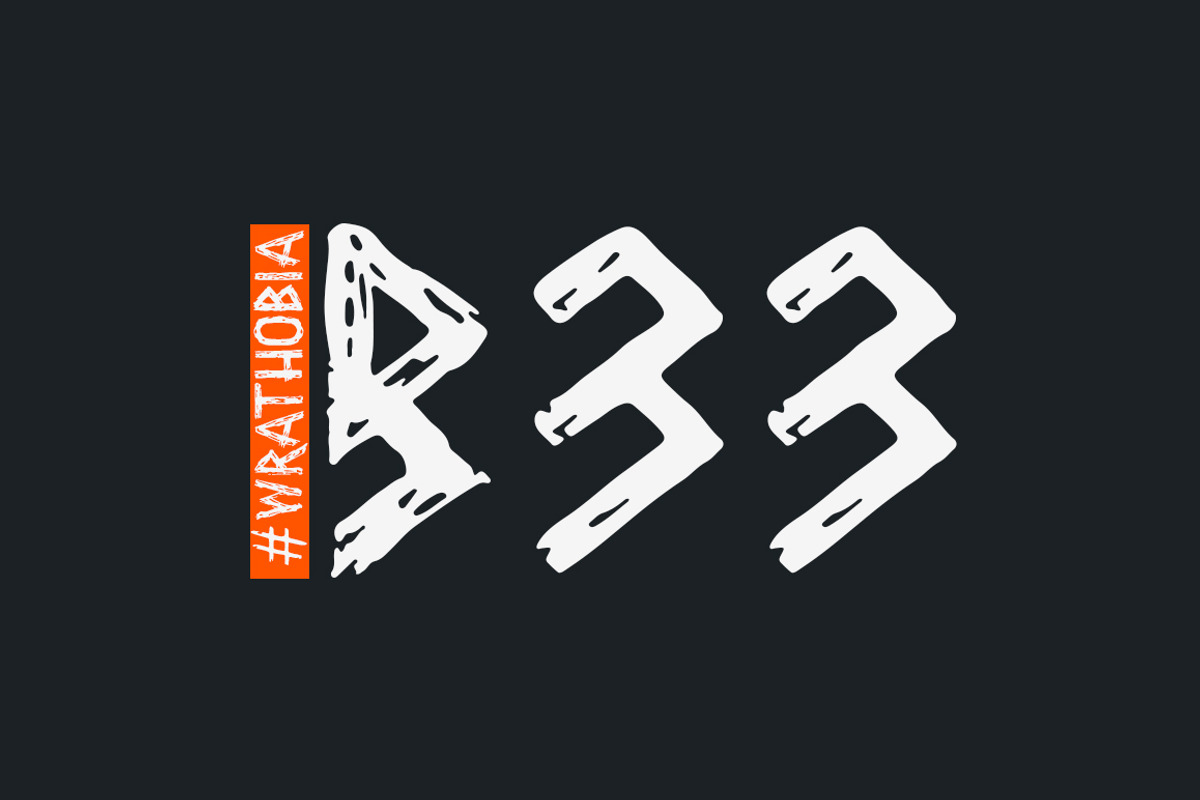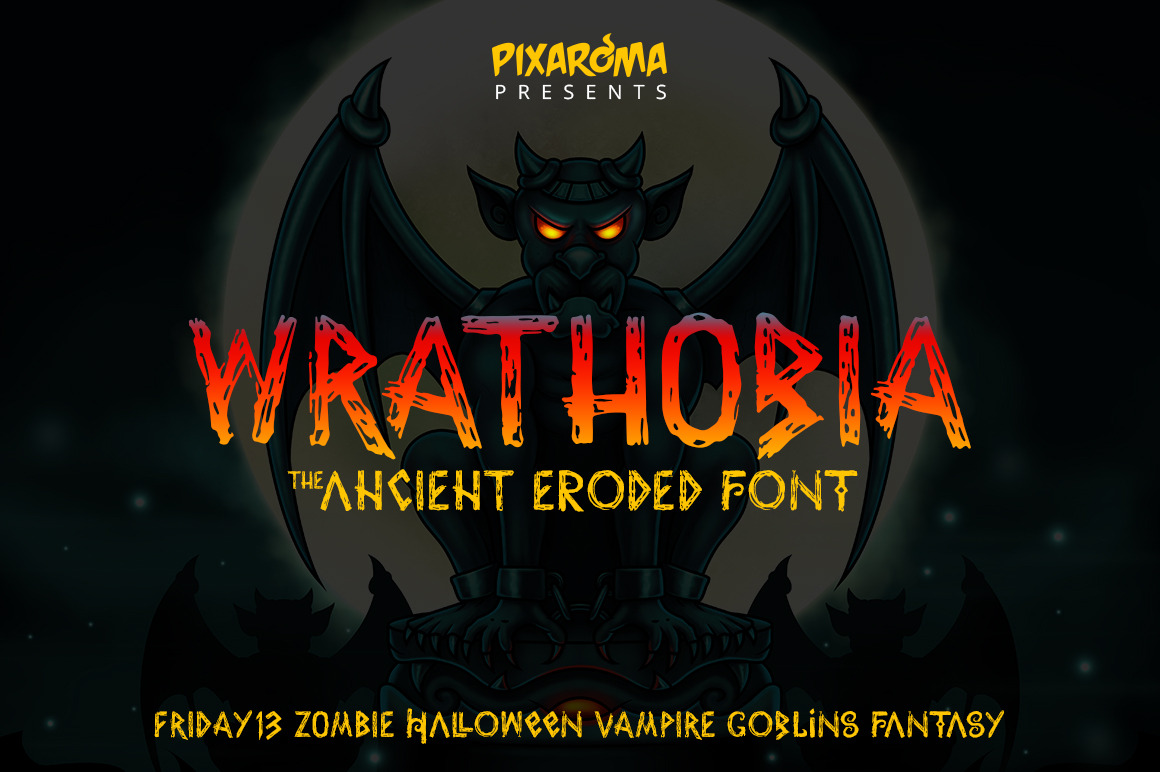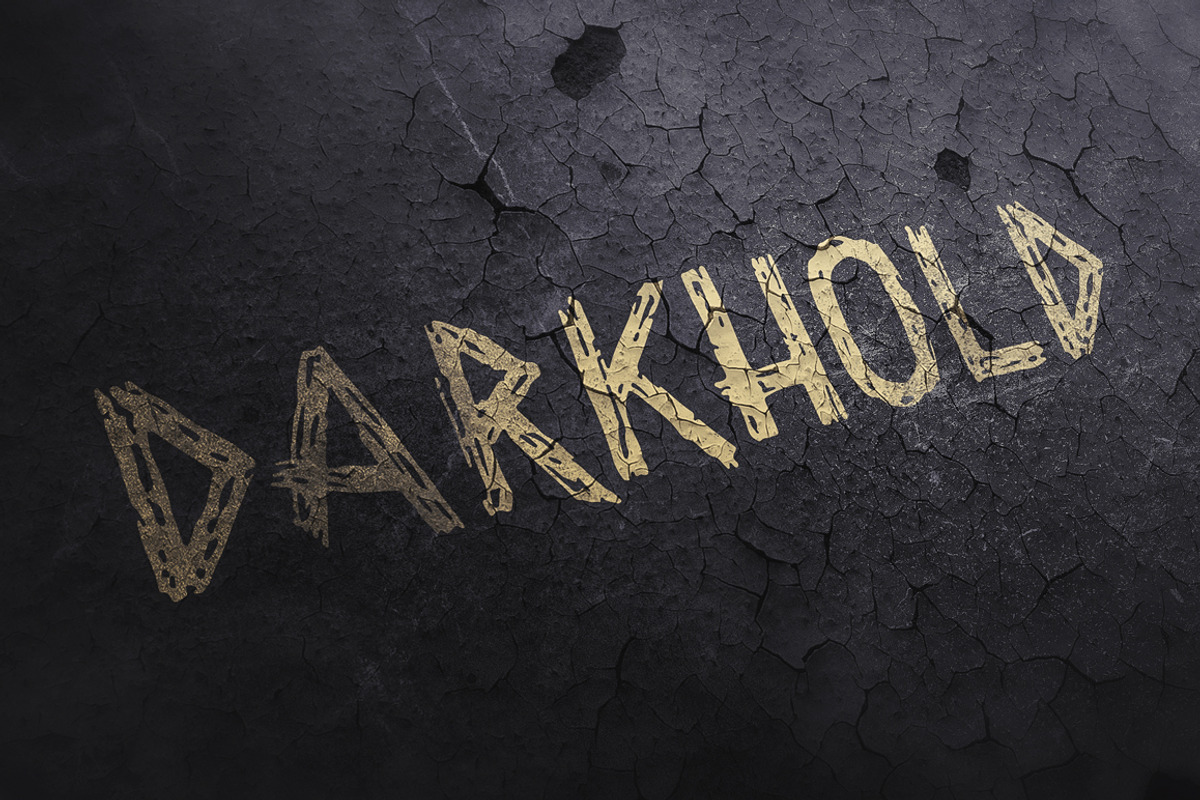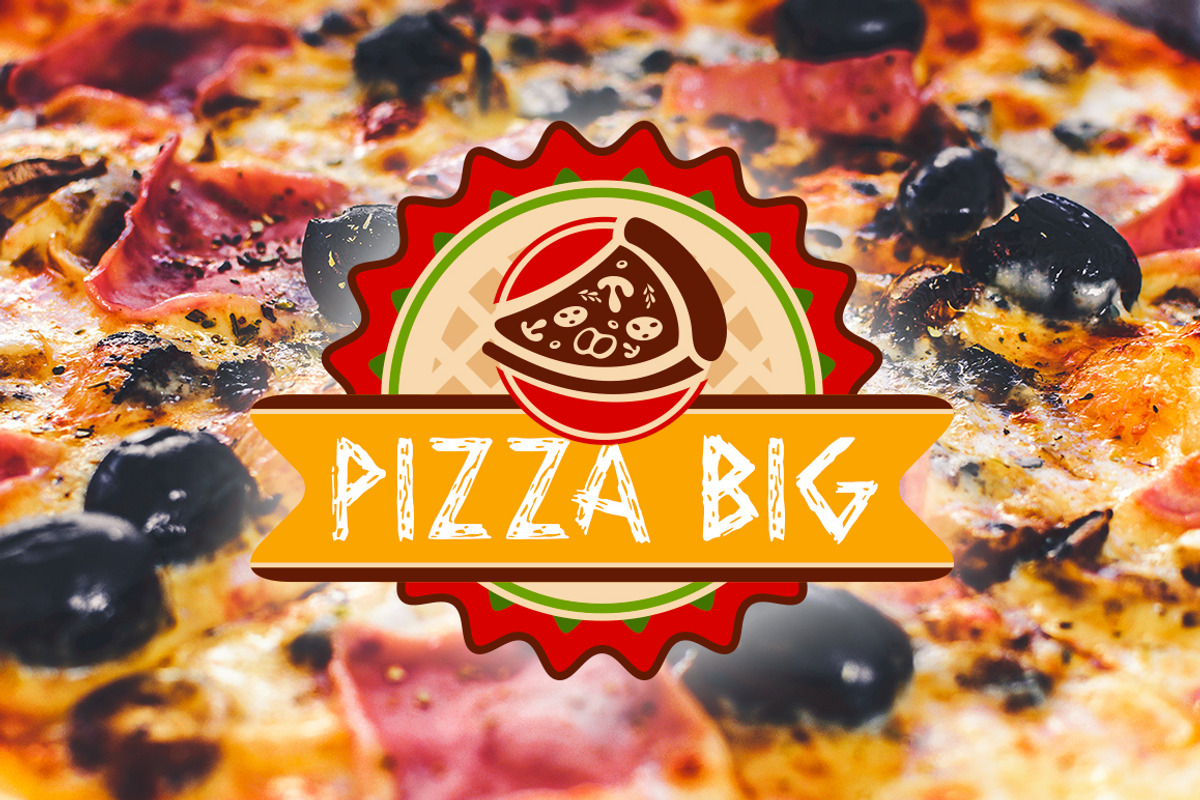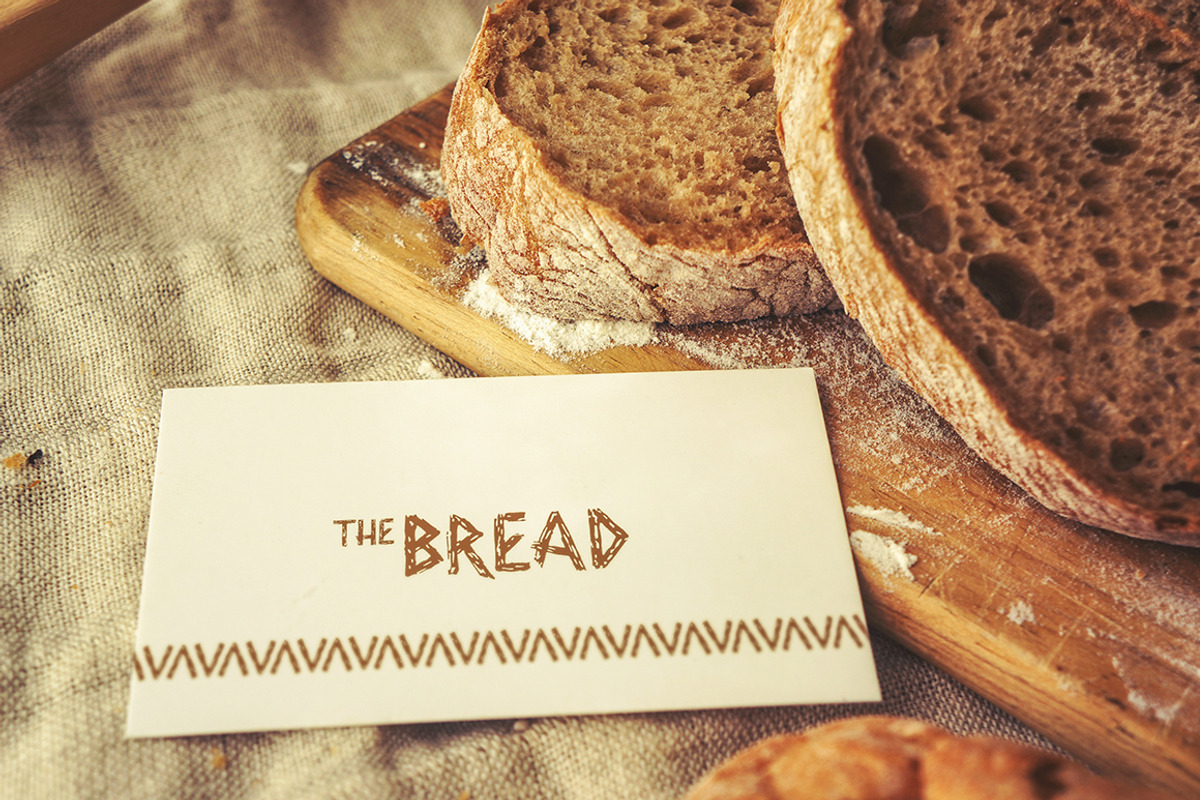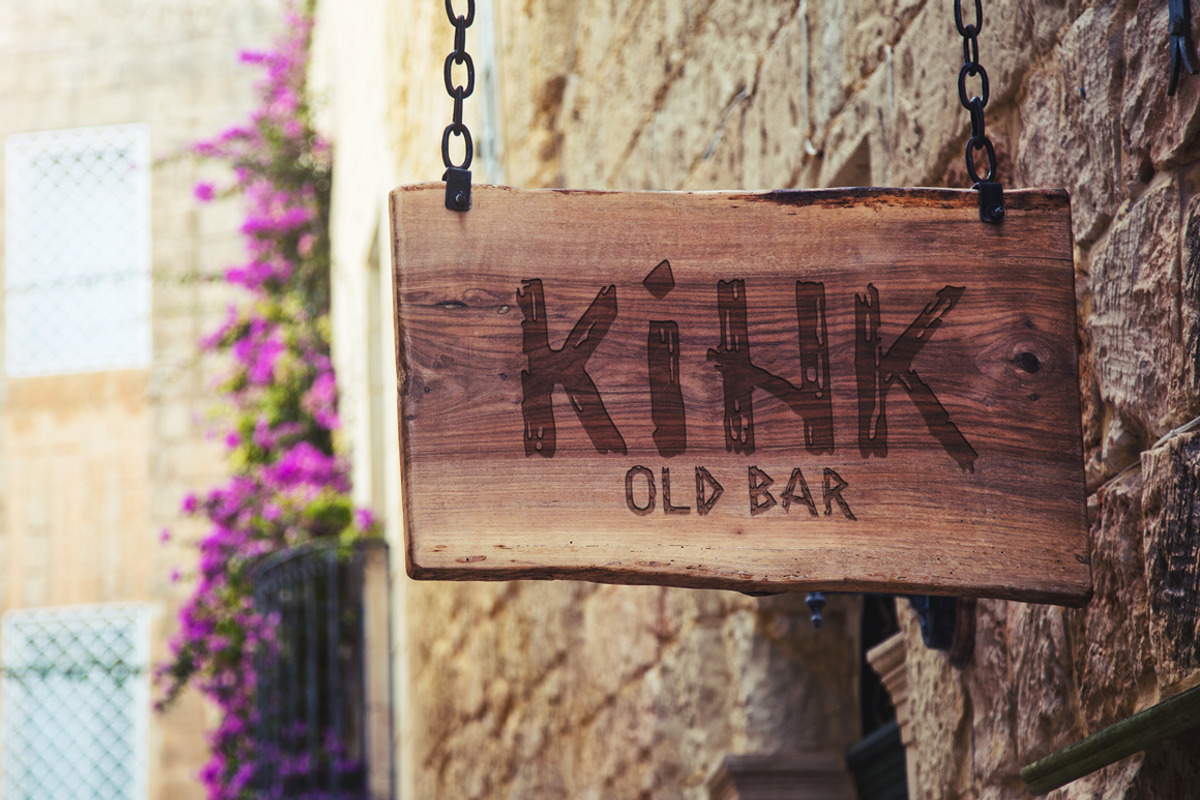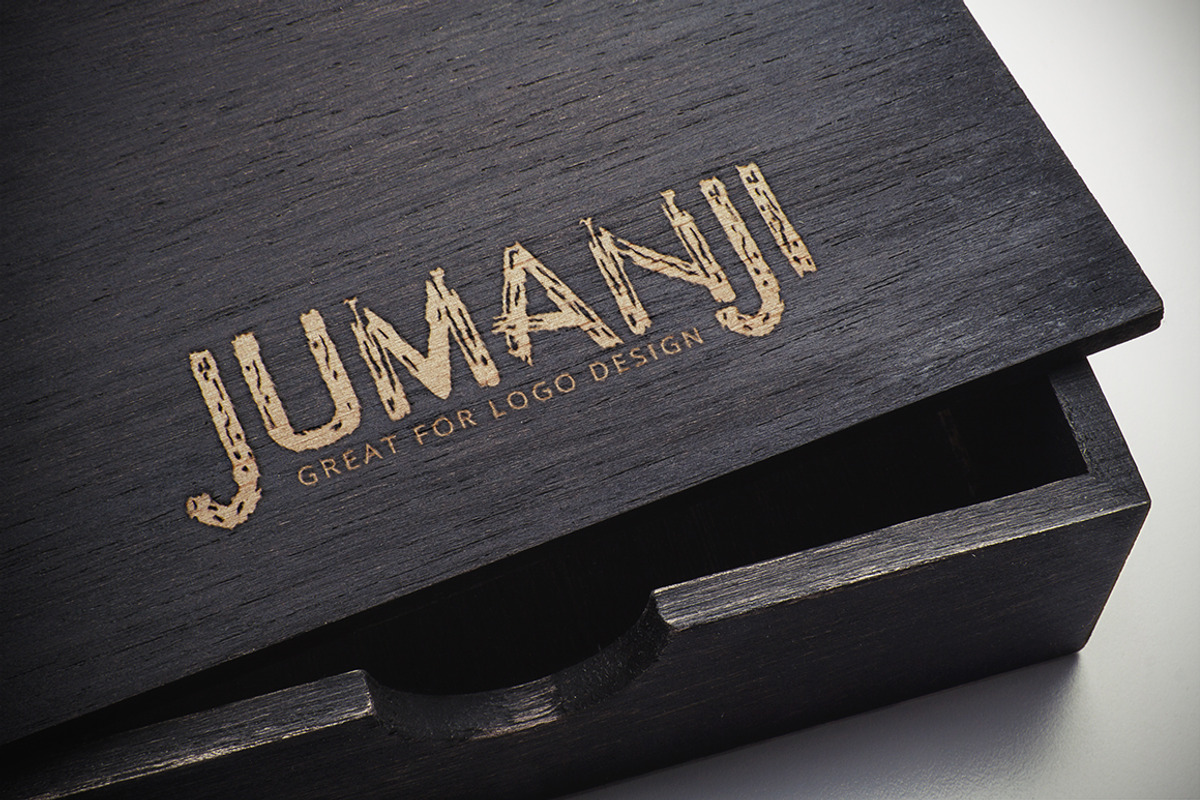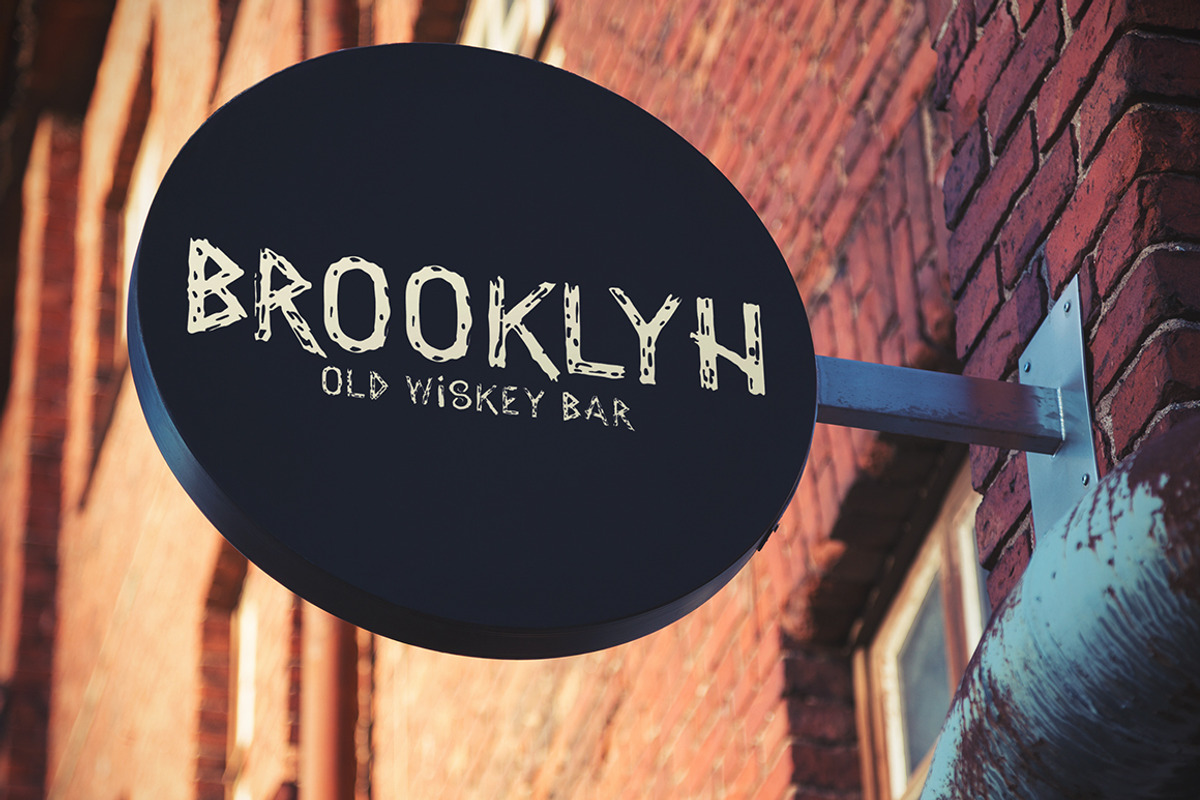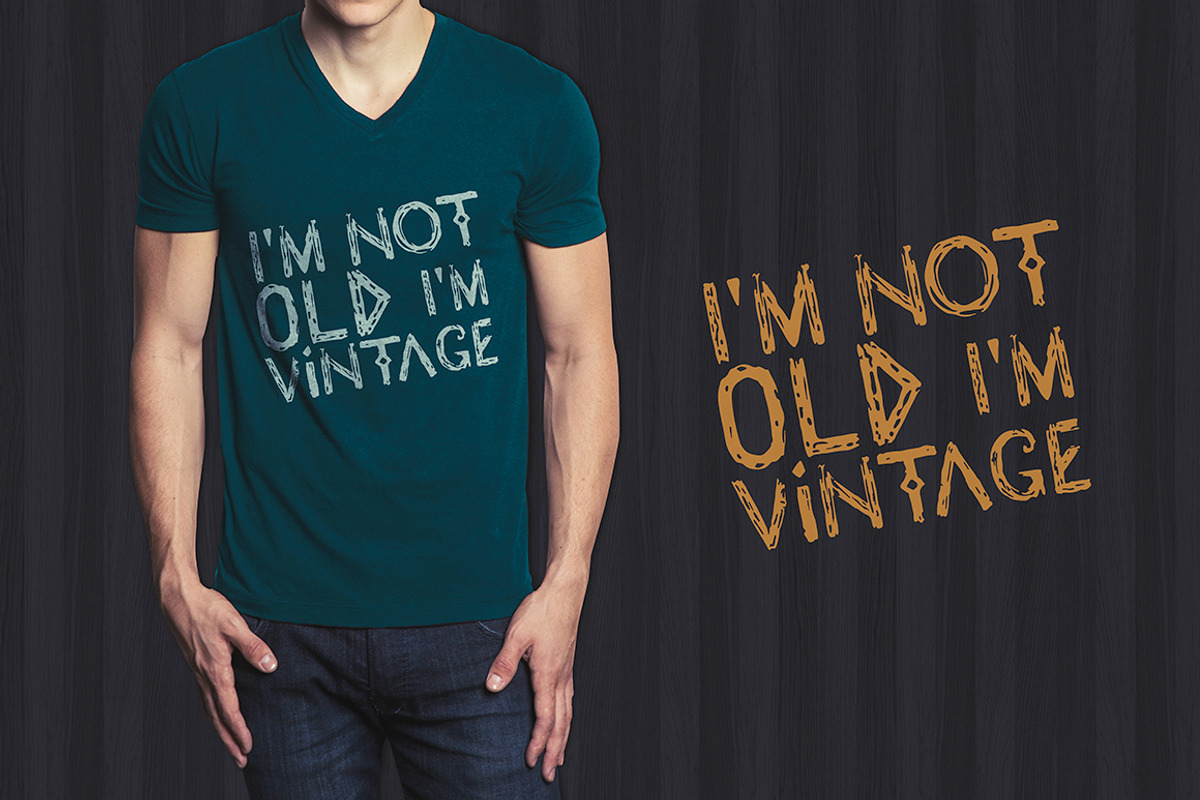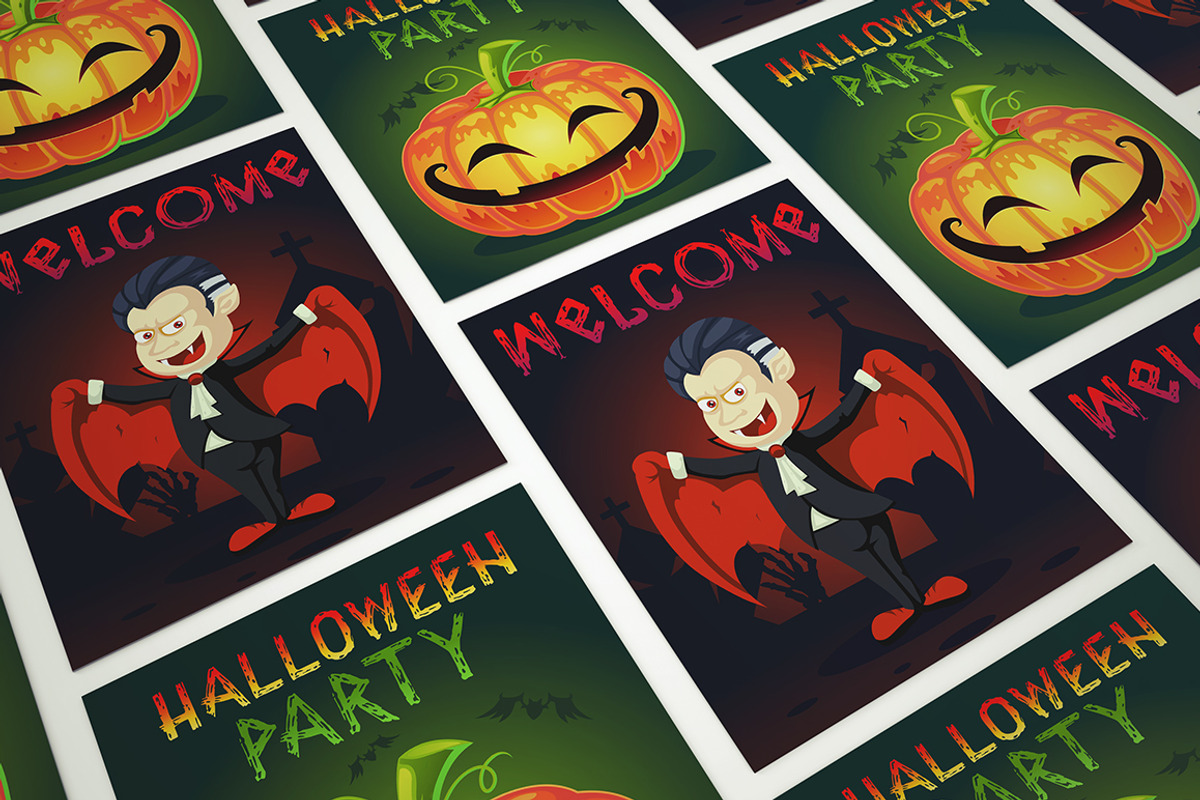
Wrathobia Display Font
Wrathobia - an ancient eroded display font.
Works for different project themes: Halloween, Ancient, Jungle, Fantasy, History, Off Road, war, zombies, Hawaii, Egypt, etc. It can be used for different purposes: lettering, logo design, labels, t-shirts, product packaging, invitations, advertising, posters, banners, game logos.
- Character set A-Z
- Characters set a-z (Different Upper Case Letters) - you can make letter combination to get different word appearance example: halloween HALLOWEEN HaLLOWEEn hA(double LL)Oween
- use "less than sign" to get small "THE" and use "greater than sign" to get double L "LL"
- Check the previews for more ideas.